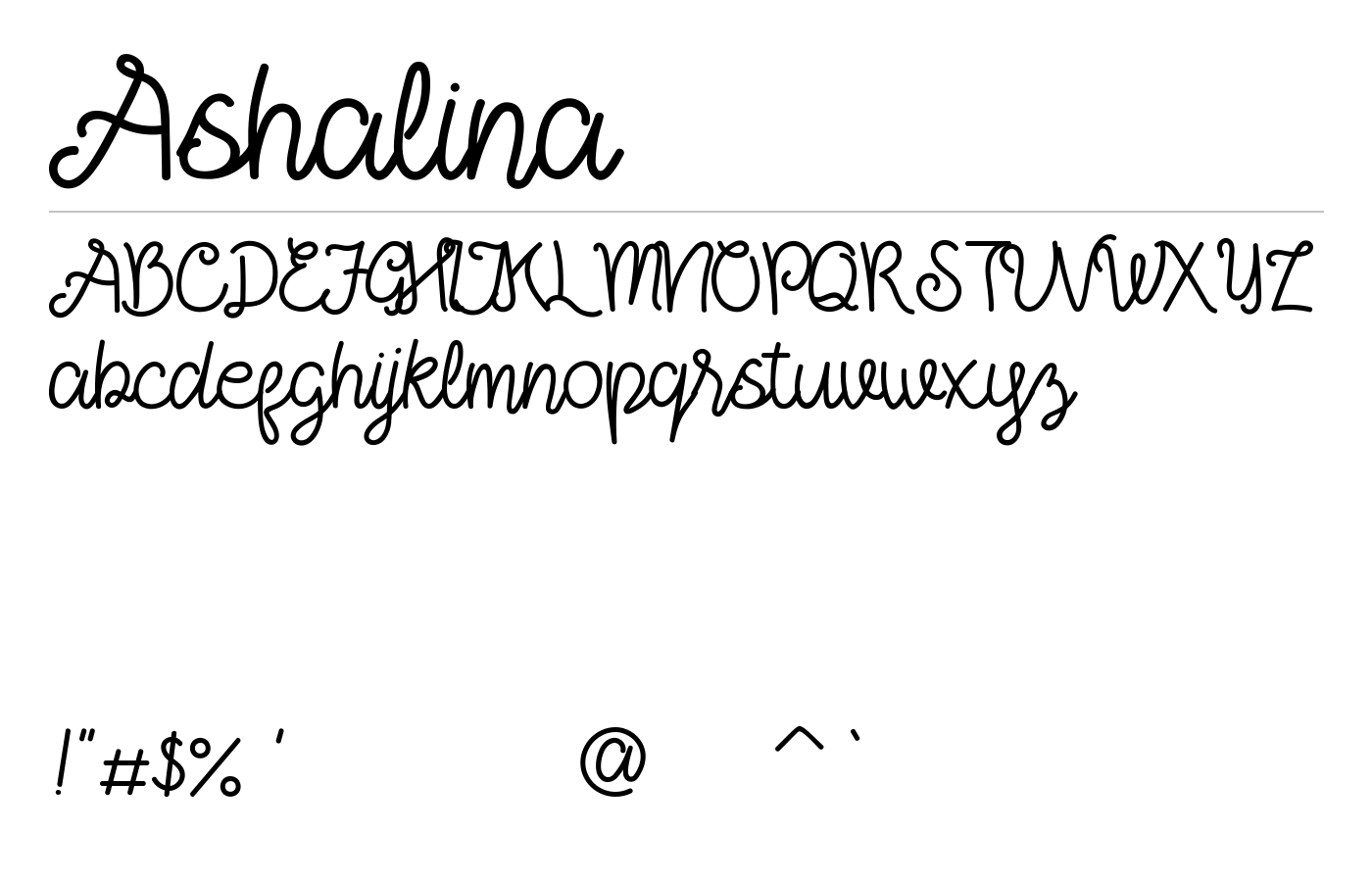
Ashalina is a playful and elegant handwritten script font characterized by its smooth, flowing strokes and charming loops, particularly in the uppercase letters. Its light weight and slightly condensed forms lend a delicate, approachable feel, making it ideal for branding, invitations, and creative projects that seek a personal, friendly touch. This font adds a stylish, informal flair while maintaining clear readability, perfect for designs that want to convey warmth and creativity.
Ashalina Font
About Ashalina Font